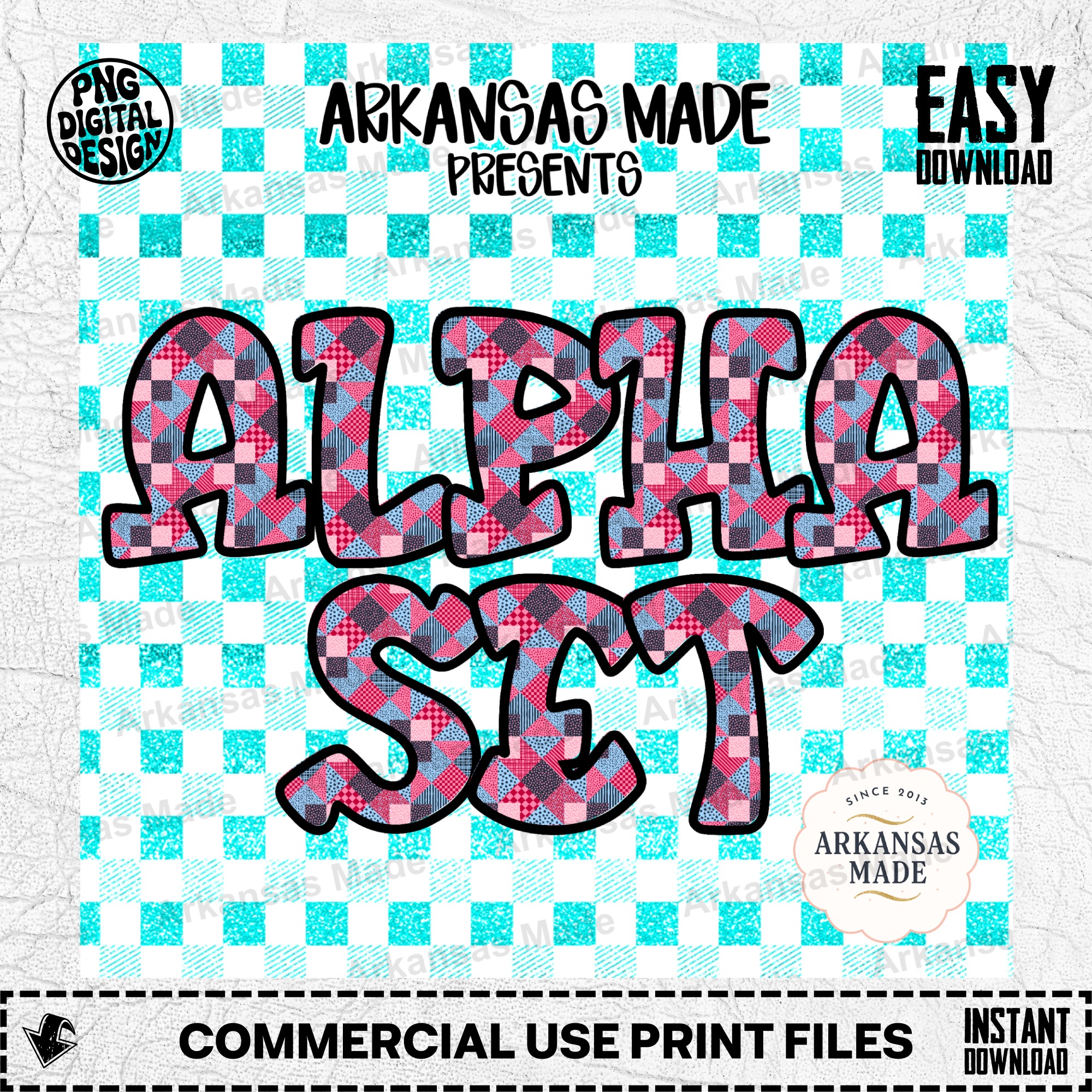
Elevate your creations with this charming Patchwork Quilted Alpha Set PNG Digital Download. Perfect for crafters and designers, featuring a rustic country aesthetic. This delightful faux quilt texture alphabet brings a cozy, handcrafted touch to all your DIY projects and personalized items. Ideal for scrapbookers, teachers, and small business owners looking for unique lettering with a warm, Southern-inspired vibe. A wonderful digital asset for any creative enthusiast’s toolkit.